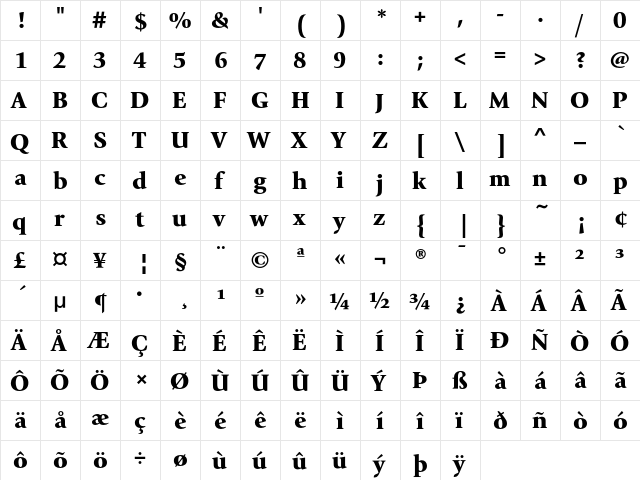
GiovanniEF Black
Design Context for GiovanniEF Typeface
GiovanniEF takes a measured approach to typography — its balanced proportions and neutral character make it a reliable workhorse for both digital and print work.